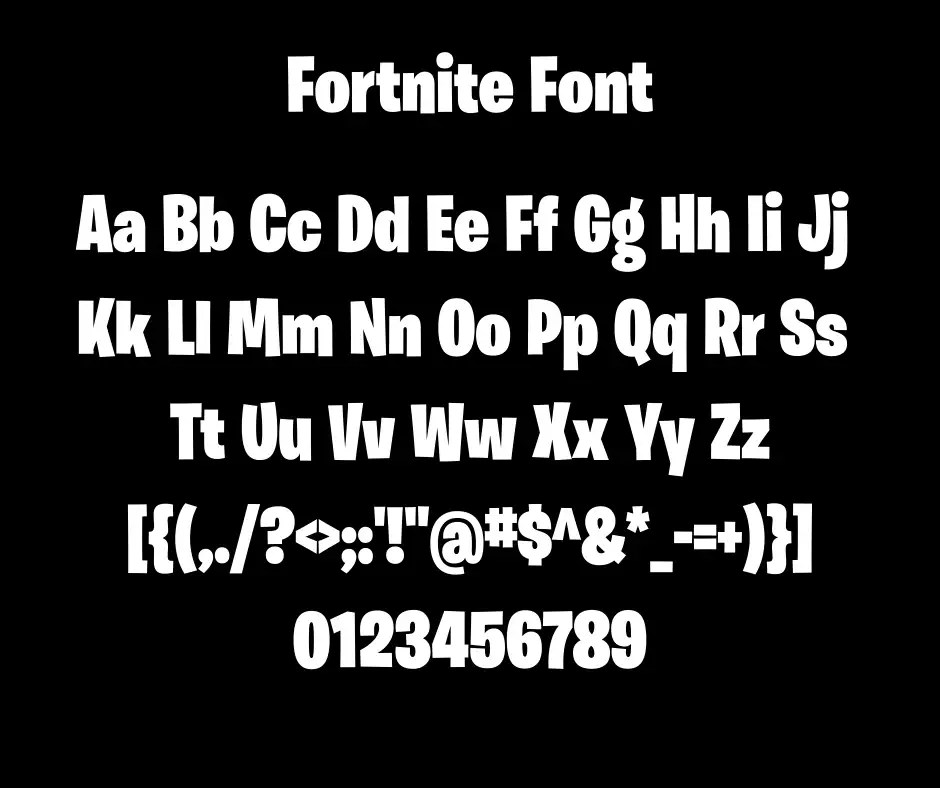
What Is The Fortnite Font On Google Docs . Fortnite is an online video game developed by epic games and released in 2017. The font reminiscent of fortnite’s thematic character can be found on various font repositories online. Open your google docs document and click on the font dropdown menu in the toolbar. Burbank is a fun typeface available in 20 styles:. The logo for the video game fortnite uses a customized setting of burbank big condensed black, a typeface created by tal leming and published by house industries. If you’re looking to personalize your documents or need a specific style for a project, knowing how to add fonts to google docs can greatly expand your design options. The font used for the video game logo is burbank big condensed black designed by tal leming. But did you know you can actually. At the top of the menu, click on more. Google’s workspace apps, such as docs, sheets, and slides, come with a selection of typefaces to choose from, accessible via the font menu.
At the top of the menu, click on more. Burbank is a fun typeface available in 20 styles:. But did you know you can actually. The font reminiscent of fortnite’s thematic character can be found on various font repositories online. The logo for the video game fortnite uses a customized setting of burbank big condensed black, a typeface created by tal leming and published by house industries. Google’s workspace apps, such as docs, sheets, and slides, come with a selection of typefaces to choose from, accessible via the font menu. The font used for the video game logo is burbank big condensed black designed by tal leming. Open your google docs document and click on the font dropdown menu in the toolbar. If you’re looking to personalize your documents or need a specific style for a project, knowing how to add fonts to google docs can greatly expand your design options. Fortnite is an online video game developed by epic games and released in 2017.
Fortnite Font by YanStudio · Creative Fabrica
What Is The Fortnite Font On Google Docs But did you know you can actually. Burbank is a fun typeface available in 20 styles:. The font reminiscent of fortnite’s thematic character can be found on various font repositories online. Google’s workspace apps, such as docs, sheets, and slides, come with a selection of typefaces to choose from, accessible via the font menu. At the top of the menu, click on more. Fortnite is an online video game developed by epic games and released in 2017. Open your google docs document and click on the font dropdown menu in the toolbar. But did you know you can actually. If you’re looking to personalize your documents or need a specific style for a project, knowing how to add fonts to google docs can greatly expand your design options. The logo for the video game fortnite uses a customized setting of burbank big condensed black, a typeface created by tal leming and published by house industries. The font used for the video game logo is burbank big condensed black designed by tal leming.
Download Fortnite Font Free Fonts Lab What Is The Fortnite Font On Google Docs If you’re looking to personalize your documents or need a specific style for a project, knowing how to add fonts to google docs can greatly expand your design options. At the top of the menu, click on more. Burbank is a fun typeface available in 20 styles:. The logo for the video game fortnite uses a customized setting of burbank. What Is The Fortnite Font On Google Docs.
What Is The Fortnite Font Unveiling The Enigma What Is The Fortnite Font On Google Docs Fortnite is an online video game developed by epic games and released in 2017. If you’re looking to personalize your documents or need a specific style for a project, knowing how to add fonts to google docs can greatly expand your design options. The font used for the video game logo is burbank big condensed black designed by tal leming.. What Is The Fortnite Font On Google Docs.
Fortnite Font by YanStudio · Creative Fabrica What Is The Fortnite Font On Google Docs Open your google docs document and click on the font dropdown menu in the toolbar. The font reminiscent of fortnite’s thematic character can be found on various font repositories online. Google’s workspace apps, such as docs, sheets, and slides, come with a selection of typefaces to choose from, accessible via the font menu. But did you know you can actually.. What Is The Fortnite Font On Google Docs.
Fortnite Font Generator With Cool Symbols (Copy & Paste) What Is The Fortnite Font On Google Docs The logo for the video game fortnite uses a customized setting of burbank big condensed black, a typeface created by tal leming and published by house industries. Burbank is a fun typeface available in 20 styles:. Open your google docs document and click on the font dropdown menu in the toolbar. If you’re looking to personalize your documents or need. What Is The Fortnite Font On Google Docs.
Fortnite Font Fonts Hut What Is The Fortnite Font On Google Docs Burbank is a fun typeface available in 20 styles:. If you’re looking to personalize your documents or need a specific style for a project, knowing how to add fonts to google docs can greatly expand your design options. Open your google docs document and click on the font dropdown menu in the toolbar. Google’s workspace apps, such as docs, sheets,. What Is The Fortnite Font On Google Docs.
Fortnite Name. Fonts What Is The Fortnite Font On Google Docs Google’s workspace apps, such as docs, sheets, and slides, come with a selection of typefaces to choose from, accessible via the font menu. Burbank is a fun typeface available in 20 styles:. Open your google docs document and click on the font dropdown menu in the toolbar. The font reminiscent of fortnite’s thematic character can be found on various font. What Is The Fortnite Font On Google Docs.
Fortnite Font Free Download What Is The Fortnite Font On Google Docs Google’s workspace apps, such as docs, sheets, and slides, come with a selection of typefaces to choose from, accessible via the font menu. Open your google docs document and click on the font dropdown menu in the toolbar. Fortnite is an online video game developed by epic games and released in 2017. The logo for the video game fortnite uses. What Is The Fortnite Font On Google Docs.
Fortnite Font Fontzaa Exclusive Fonts Library What Is The Fortnite Font On Google Docs Google’s workspace apps, such as docs, sheets, and slides, come with a selection of typefaces to choose from, accessible via the font menu. Fortnite is an online video game developed by epic games and released in 2017. At the top of the menu, click on more. Open your google docs document and click on the font dropdown menu in the. What Is The Fortnite Font On Google Docs.
Fortnite Font Free Download What Is The Fortnite Font On Google Docs Open your google docs document and click on the font dropdown menu in the toolbar. Burbank is a fun typeface available in 20 styles:. But did you know you can actually. The font used for the video game logo is burbank big condensed black designed by tal leming. If you’re looking to personalize your documents or need a specific style. What Is The Fortnite Font On Google Docs.